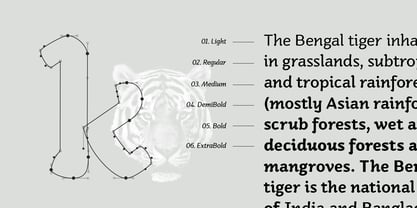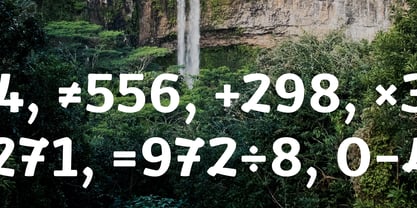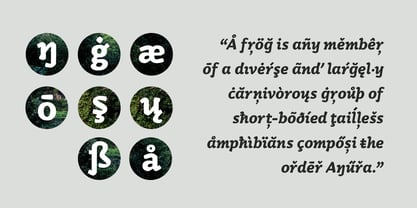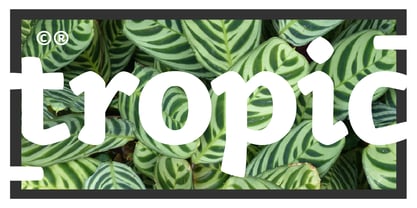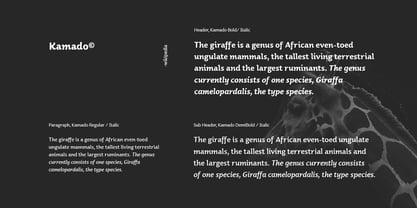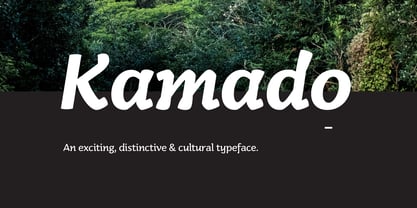
Kamado Font
This Kamado Font is perfect for Japanese cuisine branding, ceramic cookware packaging, barbecue restaurant materials, outdoor grilling equipment graphics, traditional pottery labels, artisan kiln-fired product designs, authentic Asian food establishments, ceramic art gallery promotions, fire-cooking demonstrations, and traditional craft workshop signage.
What makes this Kamado Font exciting is its authentic ceramic heritage that captures the timeless craftsmanship and fire-forged tradition of Japanese kamado ovens. The font features robust letterforms with artisanal character that convey traditional cooking excellence, ceramic durability, and authentic Japanese craftsmanship. Its fire-forged character and traditional authenticity make it ideal for brands seeking to communicate culinary tradition, artisanal quality, and authentic Japanese cooking excellence in food and craft markets.
The Kamado Font family includes regular, medium, and bold weights with ceramic-inspired alternates and traditional Japanese variants. This comprehensive artisanal font family provides designers with authentic typographic tools to create traditional compositions while maintaining the ceramic character essential for Japanese cuisine and traditional craft brand communications.
Japanese restaurants and ceramic artisans consistently choose Kamado Font Free Download for projects requiring authentic Japanese appeal and traditional craftsmanship credibility. This font's distinctive ceramic character perfectly captures the fire-cooking excellence and artisanal tradition that resonate with audiences who appreciate authentic Japanese cuisine, traditional pottery, and handcrafted ceramic quality.
The artisanal construction of Kamado Font showcases carefully crafted letterforms with ceramic proportions that ensure exceptional traditional appeal across all culinary applications. Its fire-forged appearance and authentic character create memorable impressions while maintaining the readability necessary for effective Japanese cuisine communication and traditional craft materials.
Professional designers appreciate how Kamado Font brings immediate authenticity and traditional credibility to brand communications. The font's ceramic nature allows organizations to communicate artisanal excellence and Japanese tradition while maintaining the professional quality necessary for effective positioning in authentic cuisine and traditional craft markets.
The traditional appeal of Kamado Font makes it particularly effective for brands emphasizing Japanese cooking traditions, ceramic craftsmanship, and artisanal fire-cooking methods. Its authentic character resonates strongly with audiences who appreciate traditional Japanese cuisine, handcrafted ceramics, and brands that honor time-tested cooking and pottery traditions.
Whether developing branding for authentic Japanese restaurants or creating materials for ceramic pottery studios, Kamado Font Free Download provides the traditional typographic foundation that artisanal brands need to communicate their Japanese authenticity, ceramic excellence, and the fire-forged quality that defines traditional kamado cooking and ceramic craftsmanship achievement.